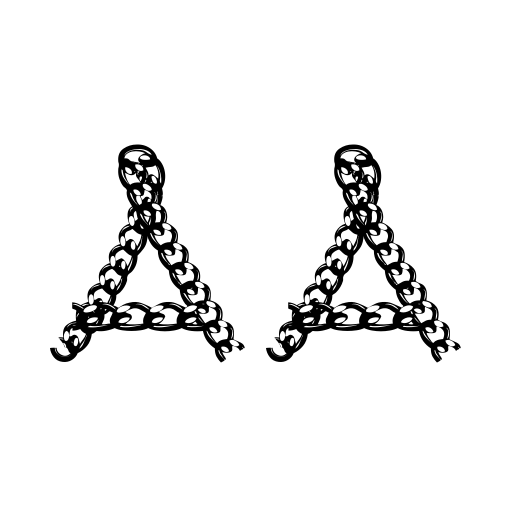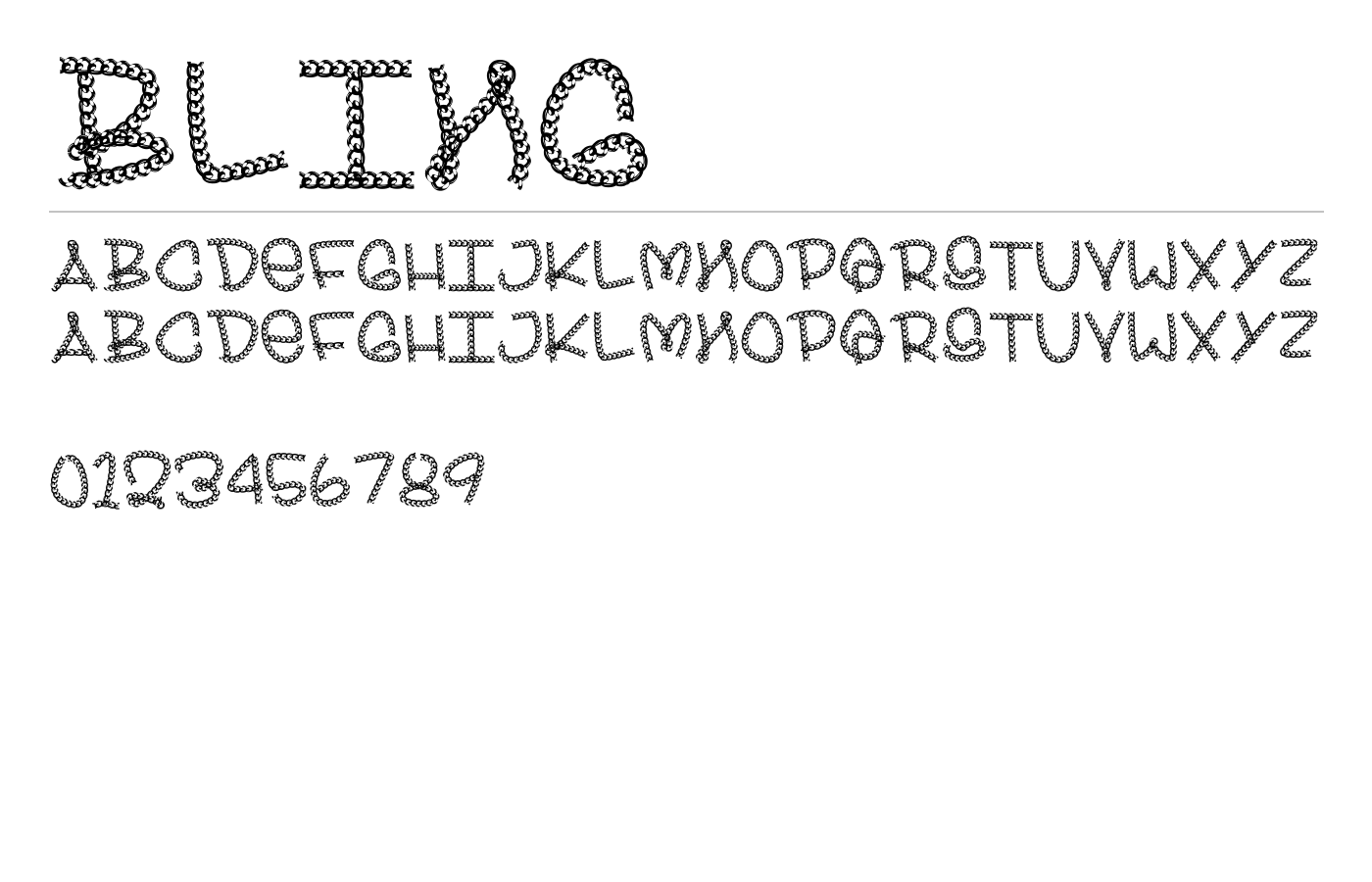
BLING is a playful and whimsical display font made up of small chain link shapes that form each letter and number. Its casual, decorative style brings a sense of fun and uniqueness, making it ideal for creative projects, informal branding, and eye-catching headlines that need a touch of personality and energy. This font excels in designs where a bold, unconventional look is desired to capture attention and convey a lively, handcrafted vibe.
BLING Font
About BLING Font